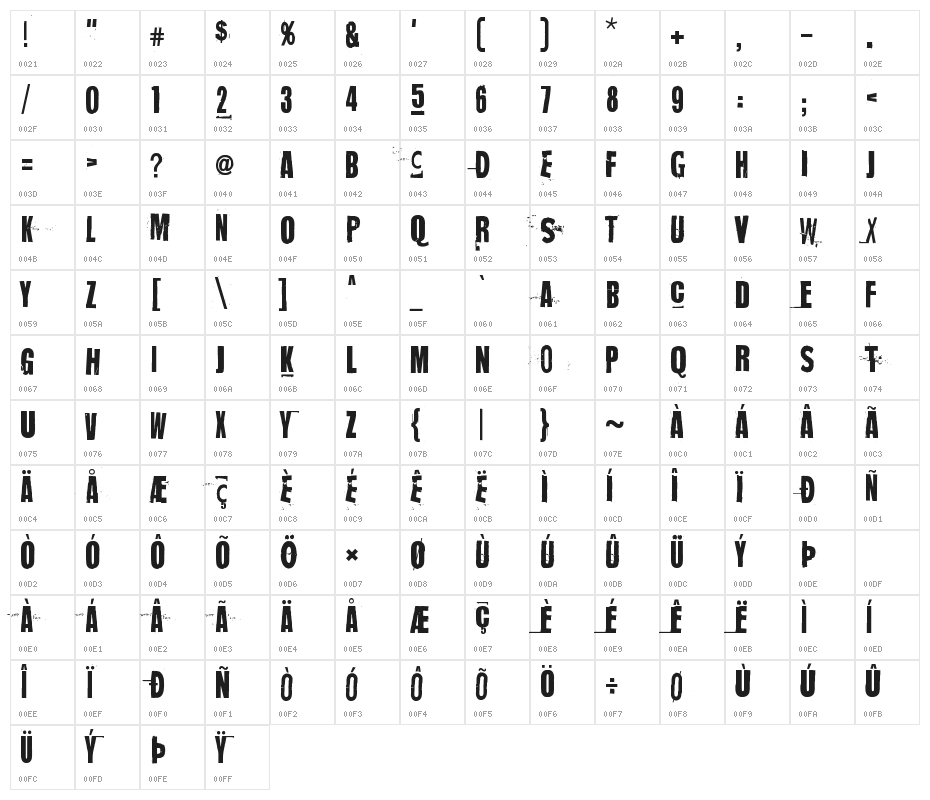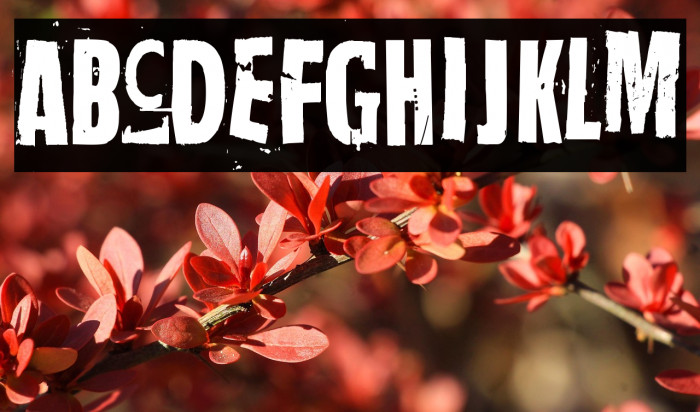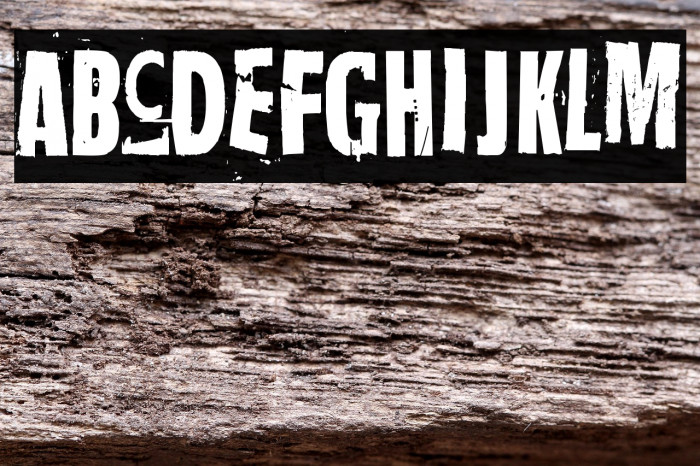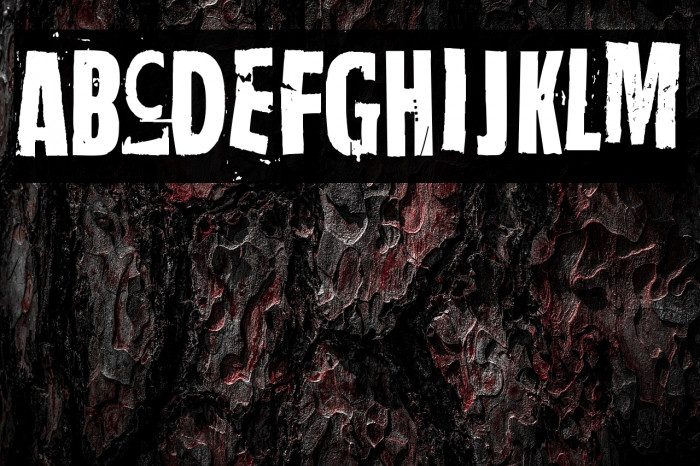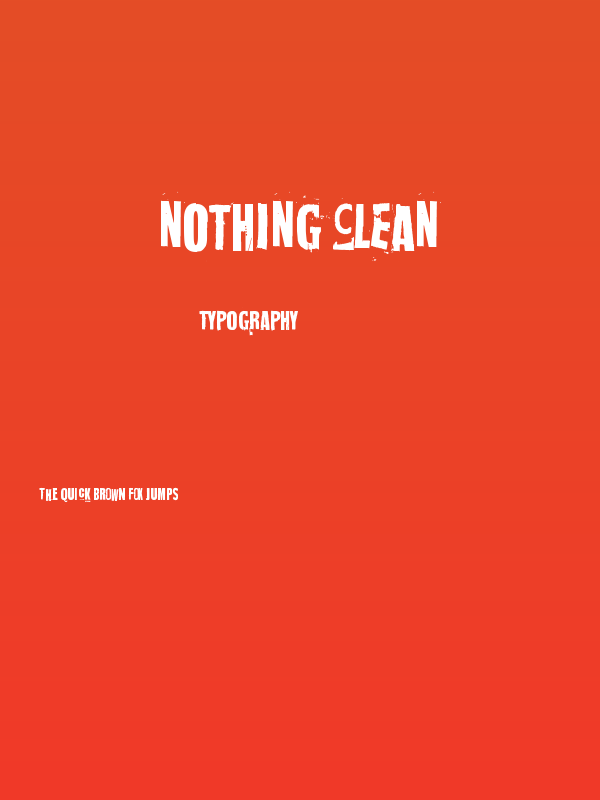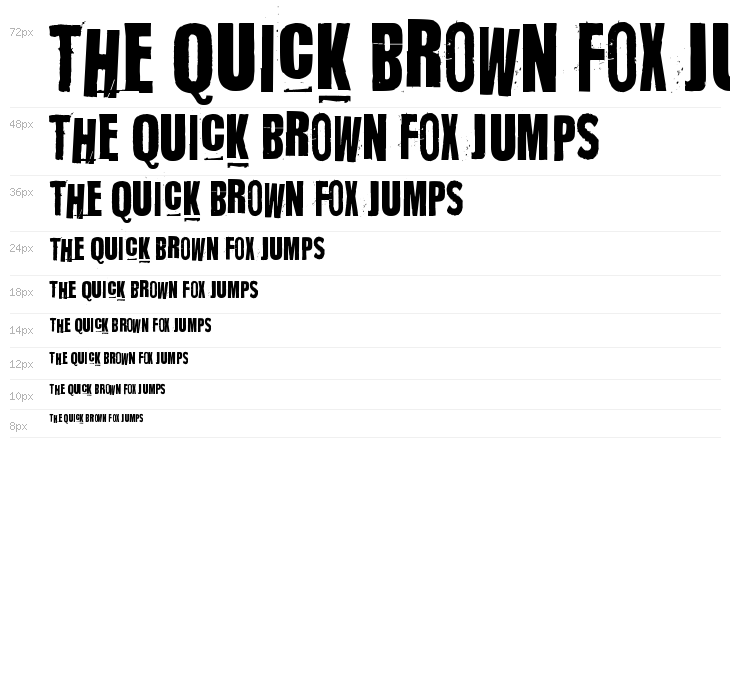
Nothing Clean Font
Nothing Clean Description
This font features a bold, distressed style with a grunge aesthetic. The characters are heavily textured, giving them a worn and rugged appearance. The uppercase letters are prominent and impactful, while the numbers and special characters maintain the same distressed look. The font's uneven edges and varying thicknesses contribute to its raw and edgy feel, making it ideal for projects that require a strong, rebellious statement. Its unique style captures attention and conveys a sense of urgency and intensity.
| Overall Style | Grunge, Edgy |
| Use Case | Headlines, Posters, Branding |
| Proposed Projects | Ideal for music album covers, posters, urban-themed designs, and branding that requires a bold statement. |